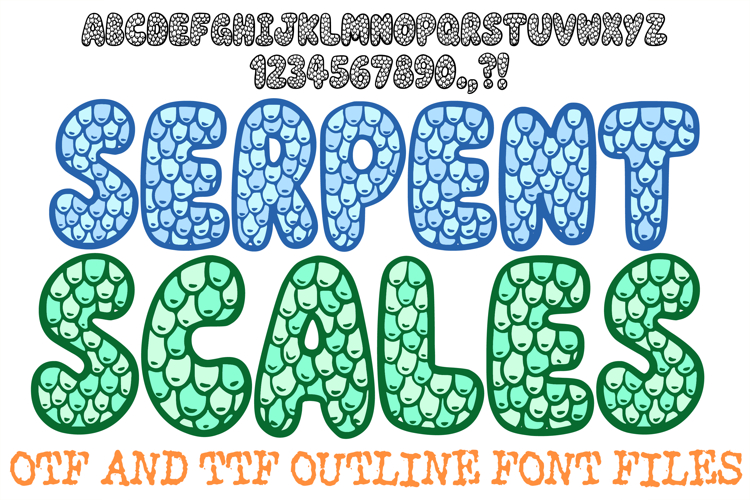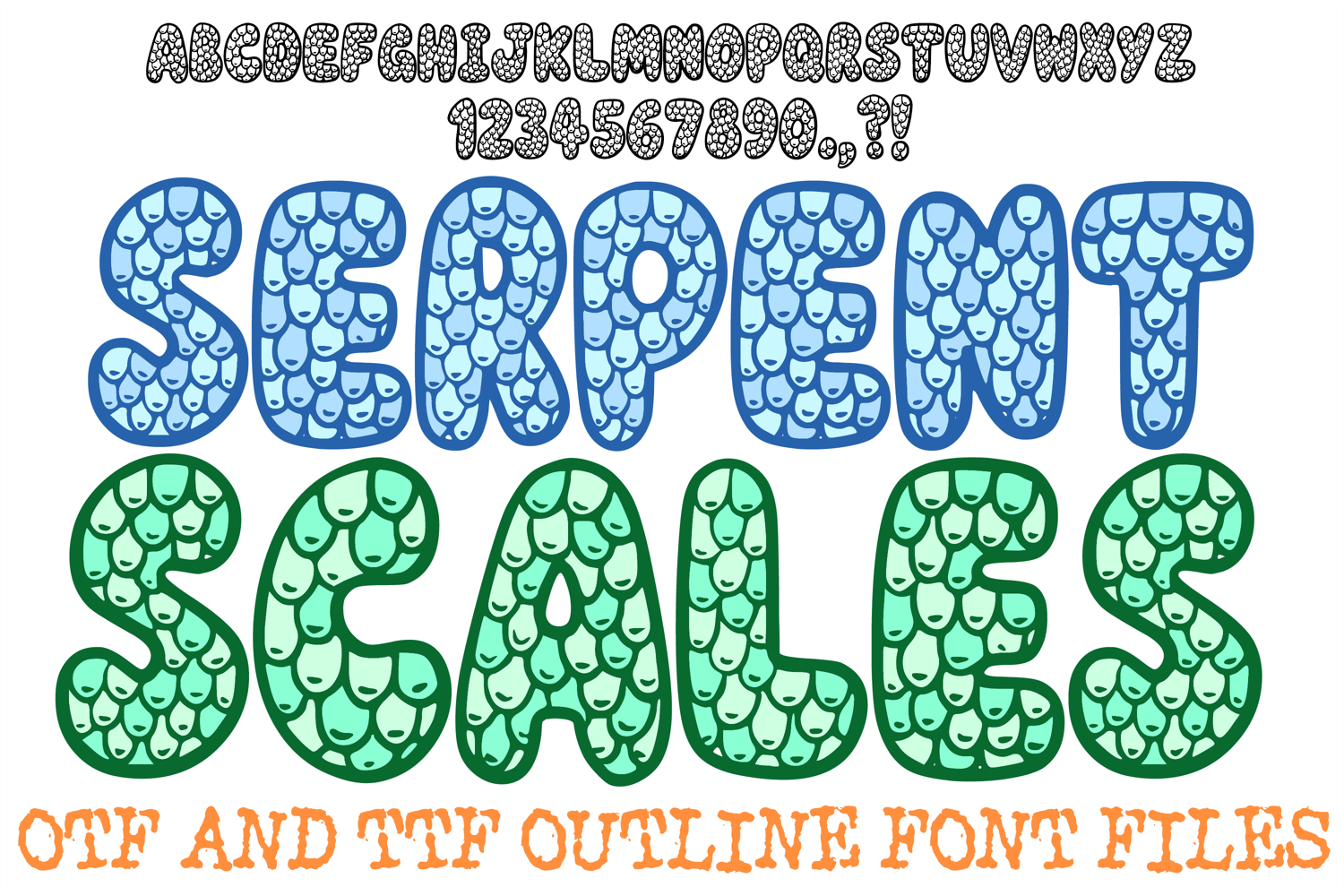
Serpent Scales Alphabet Lettering Font Dragon Reptile Skin
Bring a bold, playful texture to your design projects with Serpent Scales, a unique hand-drawn display font inspired by dragon, reptile, and mermaid scales. Featuring rounded, bubbly letterforms filled with detailed scale patterns, this font is perfect for creators looking to add a fun, tactile element to their work.
Whether you are crafting themed party invitations, kids' t-shirt graphics, sticker sheets, book covers, or coloring page headers, Serpent Scales brings instant personality and hand-crafted flair. Delivered in a clean vector TTF/OTF format, this high-resolution font remains crisp and easy to cut or print across all medium sizes.